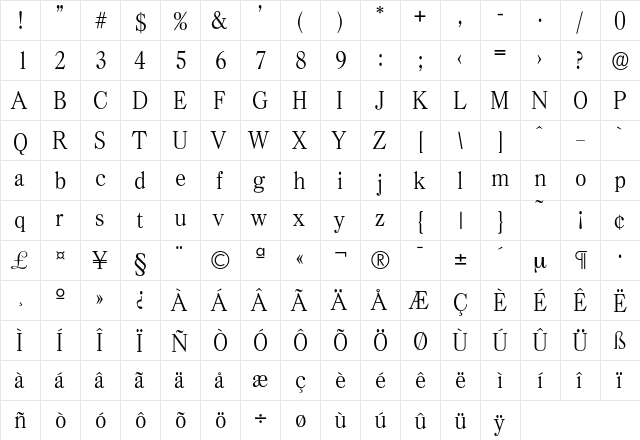
Casad-Light Regular
Design Context for Casad-Light Typeface
Casad-Light offers clean, dependable letterforms without strong stylistic allegiance, making it a practical choice for designers who need flexibility. Its slender proportions lend an understated elegance to any composition.